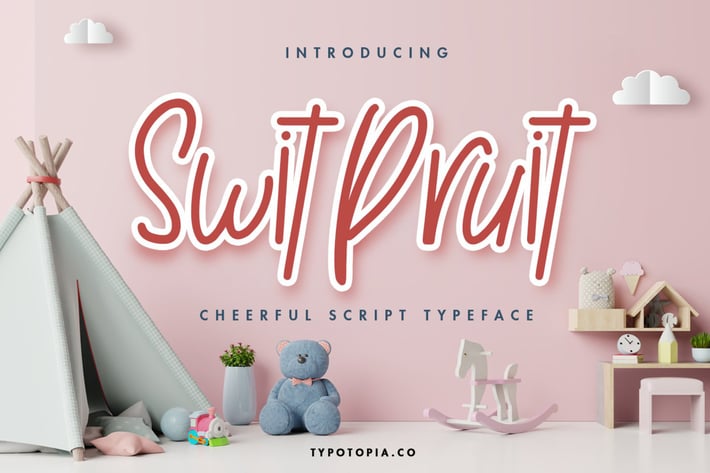
Swit Pruit a Fun Handwritten Font
Introducing Swit Pruit a Fun Handwritten Font. This perfect for the purposes of designing templates, brochures, videos, advertising branding, logos and more.